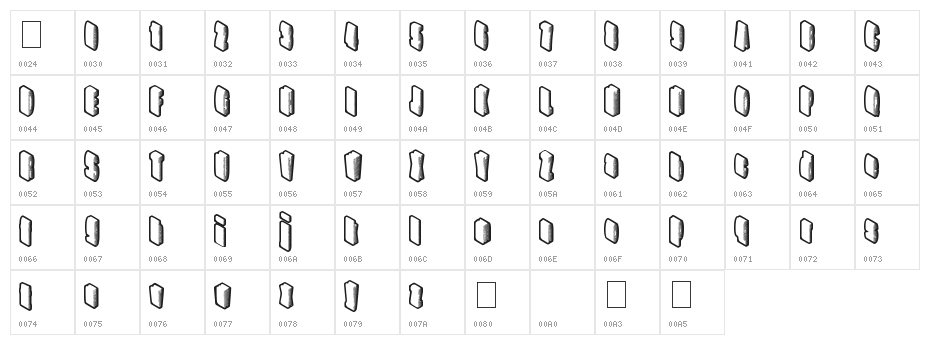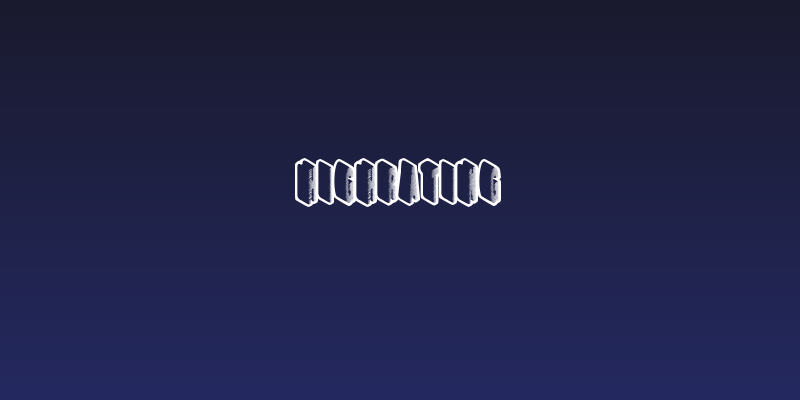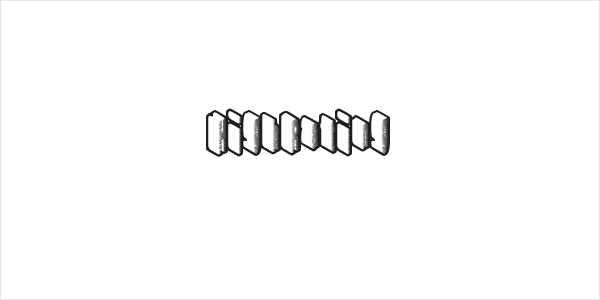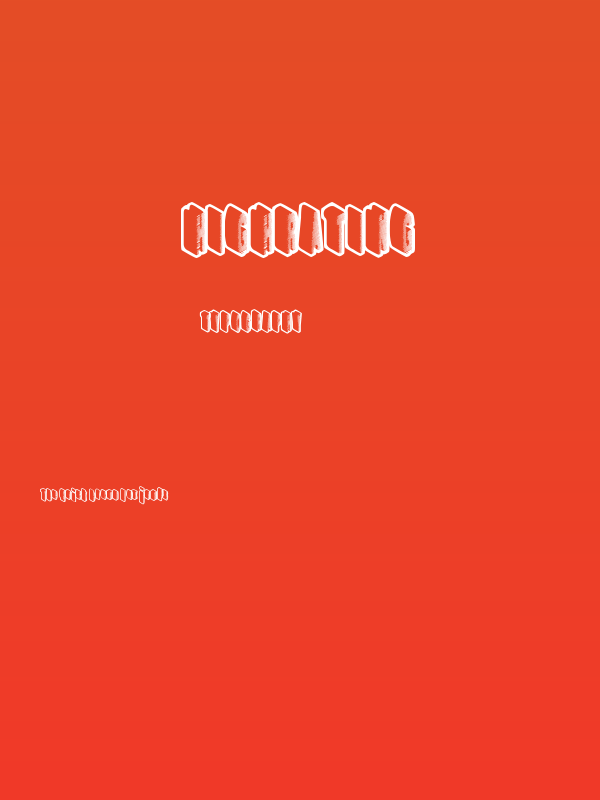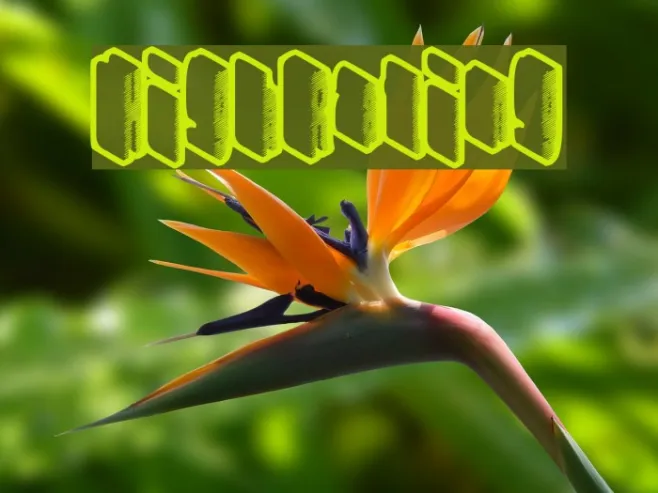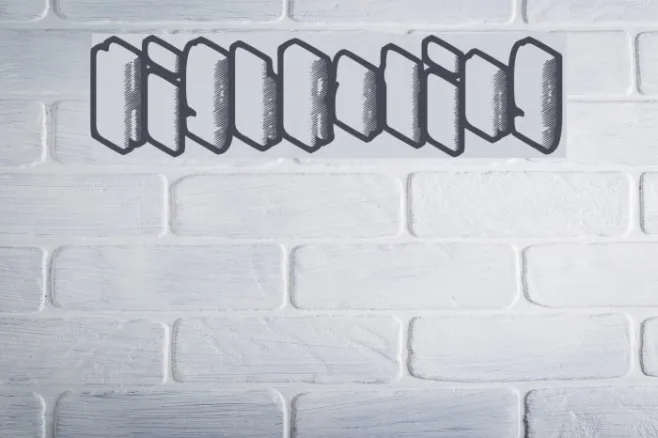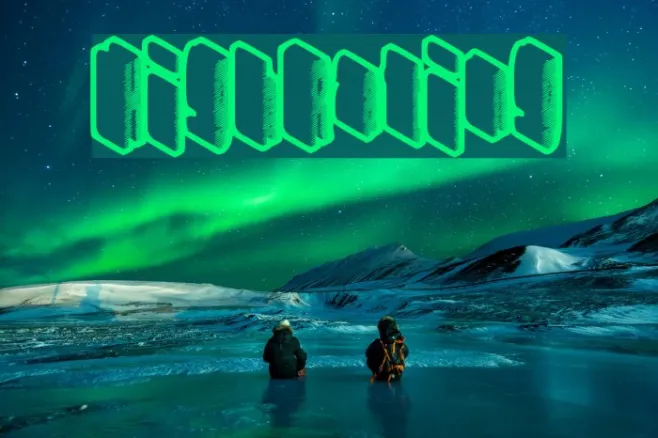
HighRating Font
HighRating Description
This font features a bold, three-dimensional design with a sketch-like texture that gives it a hand-drawn appearance. The letters are outlined with thick black lines, creating a strong contrast against the inner shading. Each character has a unique, artistic flair, making it stand out with a playful yet edgy vibe. The font's style is reminiscent of graffiti or street art, with a modern twist that adds depth and dimension. The uppercase and lowercase letters maintain a consistent style, while the numbers and special characters follow suit, ensuring a cohesive look across all elements.
| Overall Style | Modern, Artistic |
| Proposed Projects | Ideal for street art designs, urban-themed posters, edgy branding, and creative headlines. |